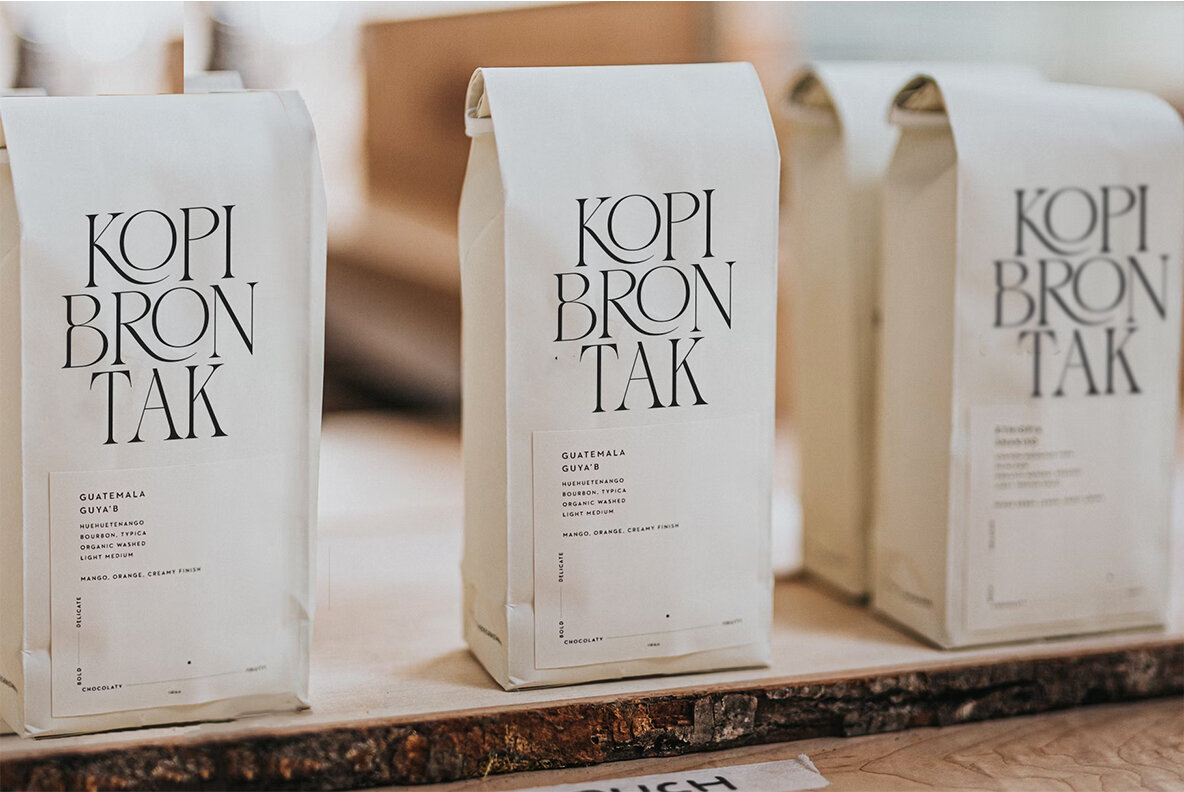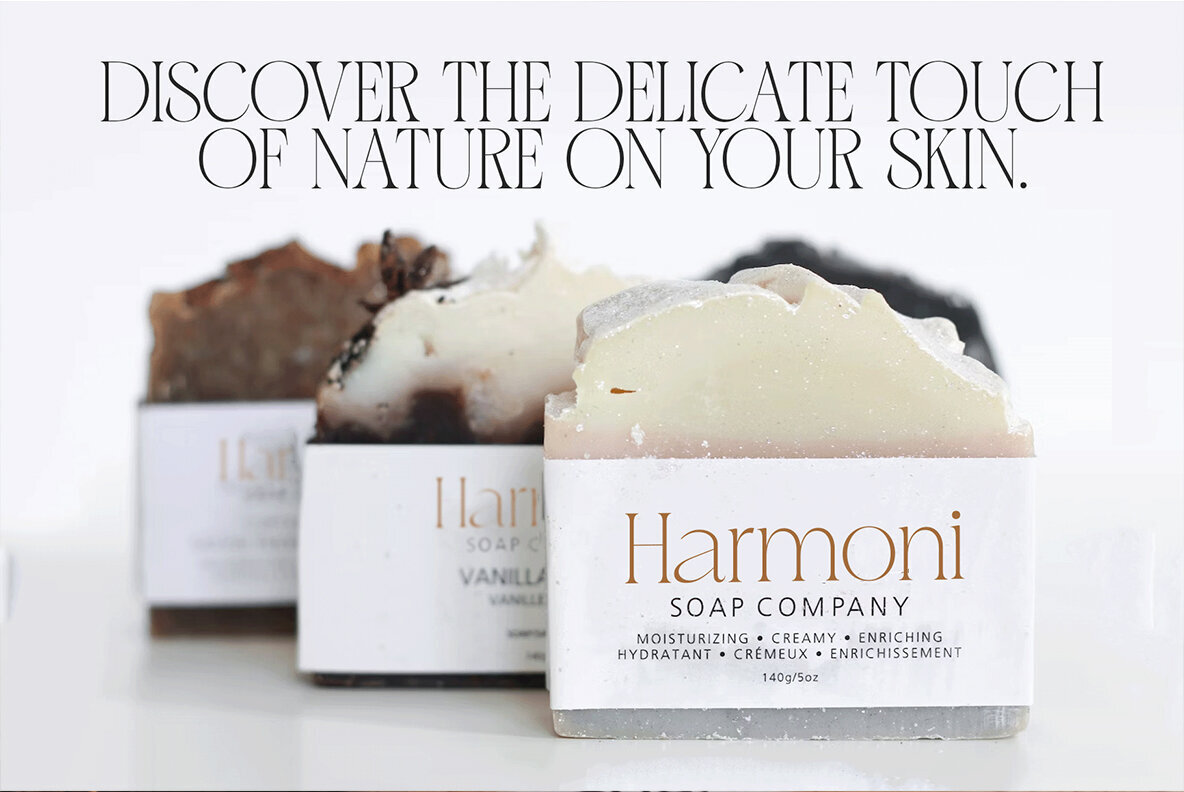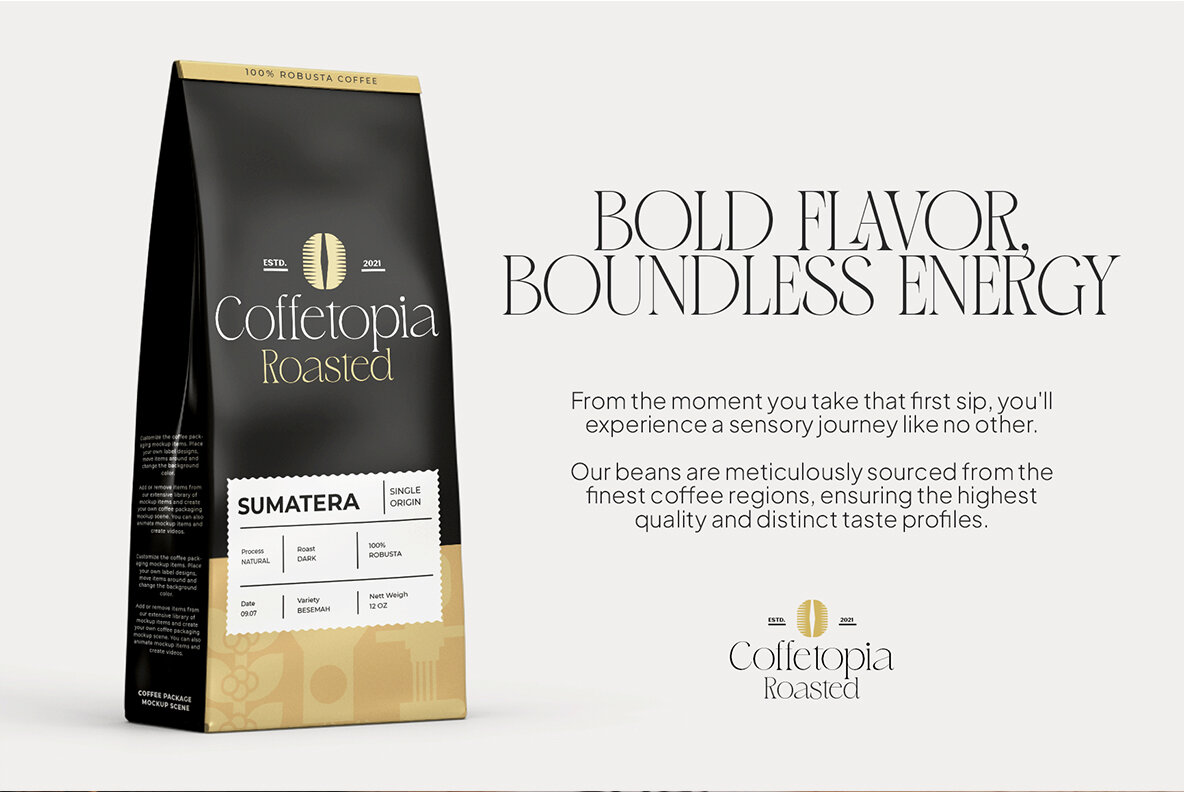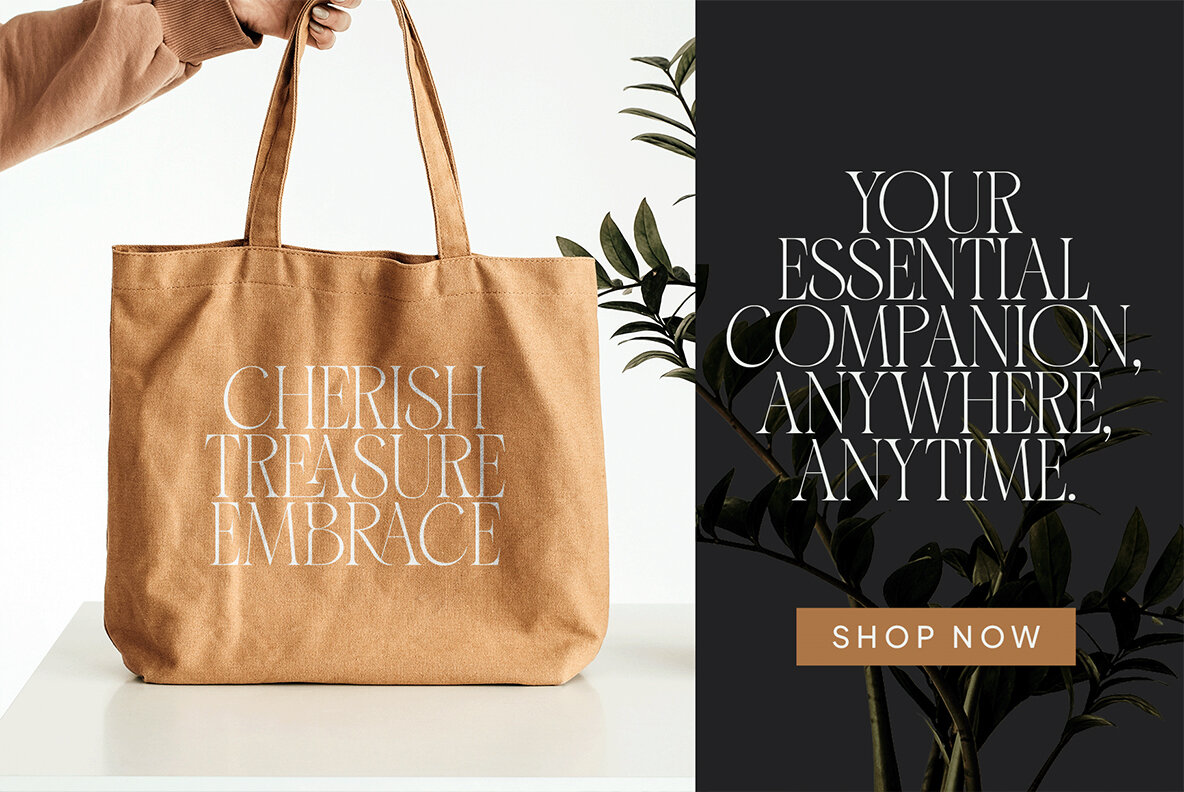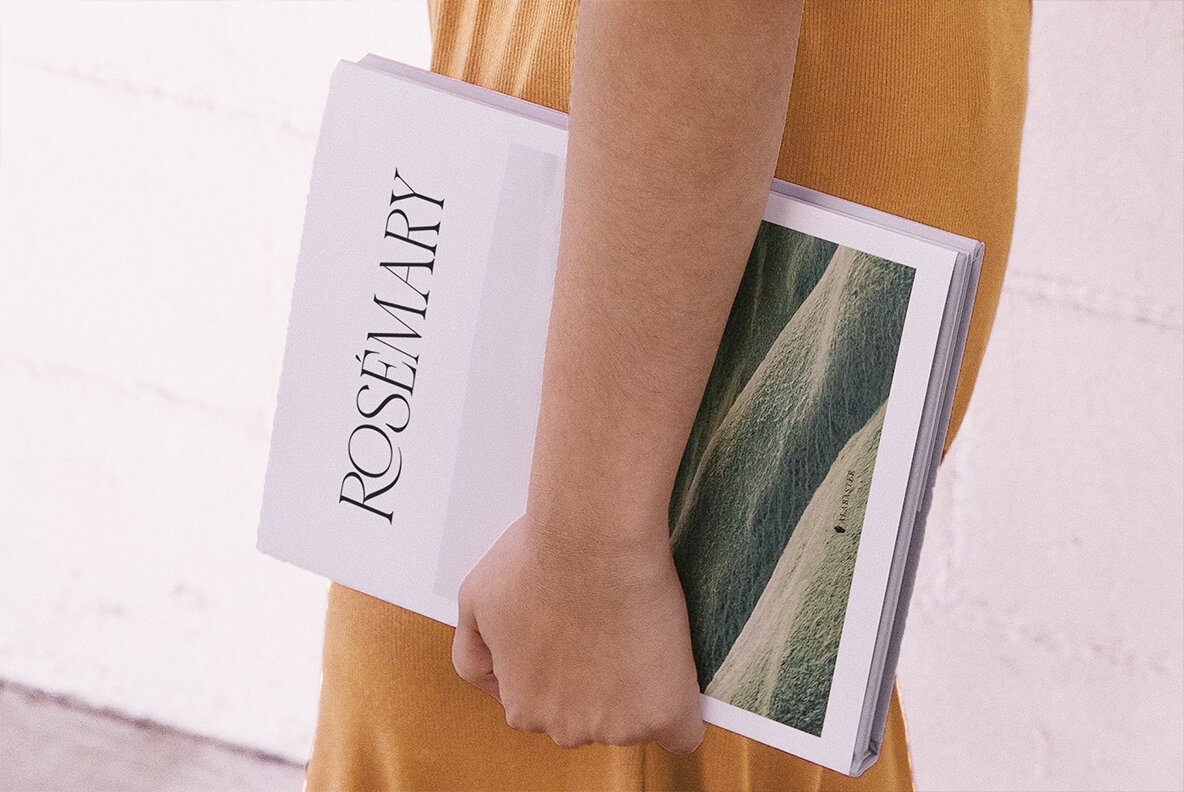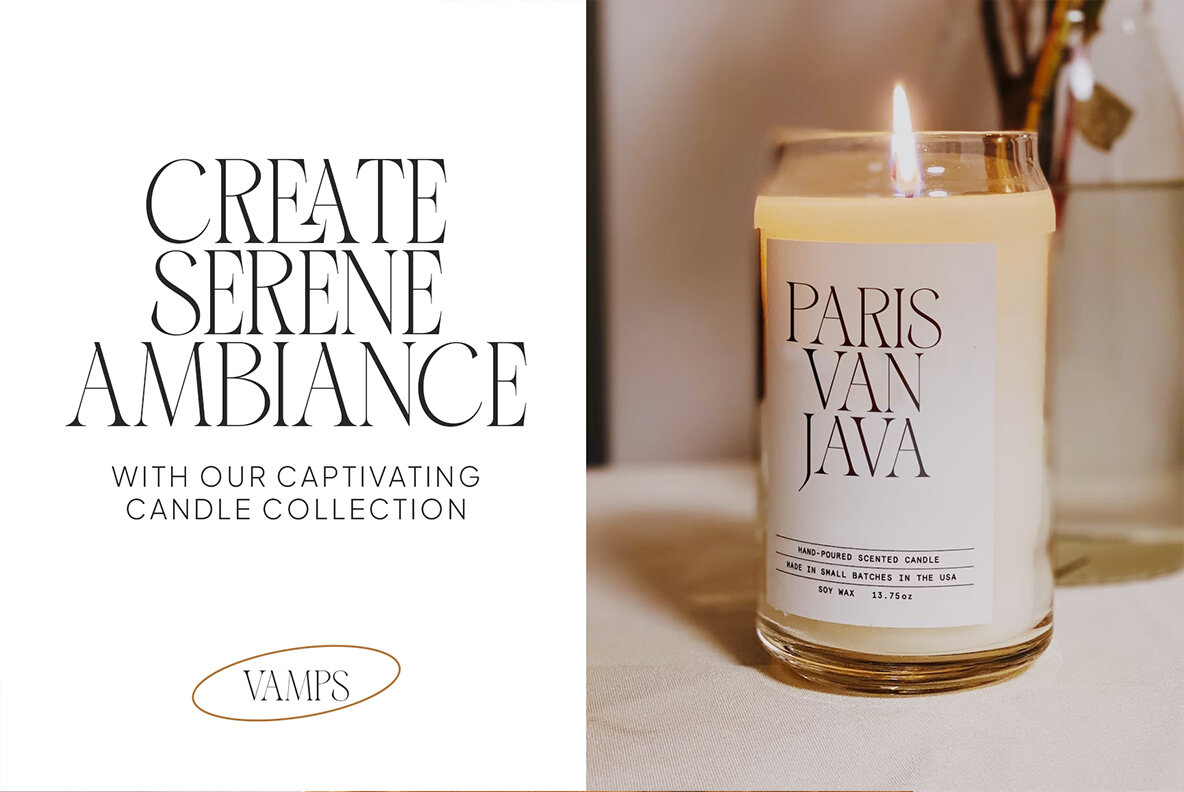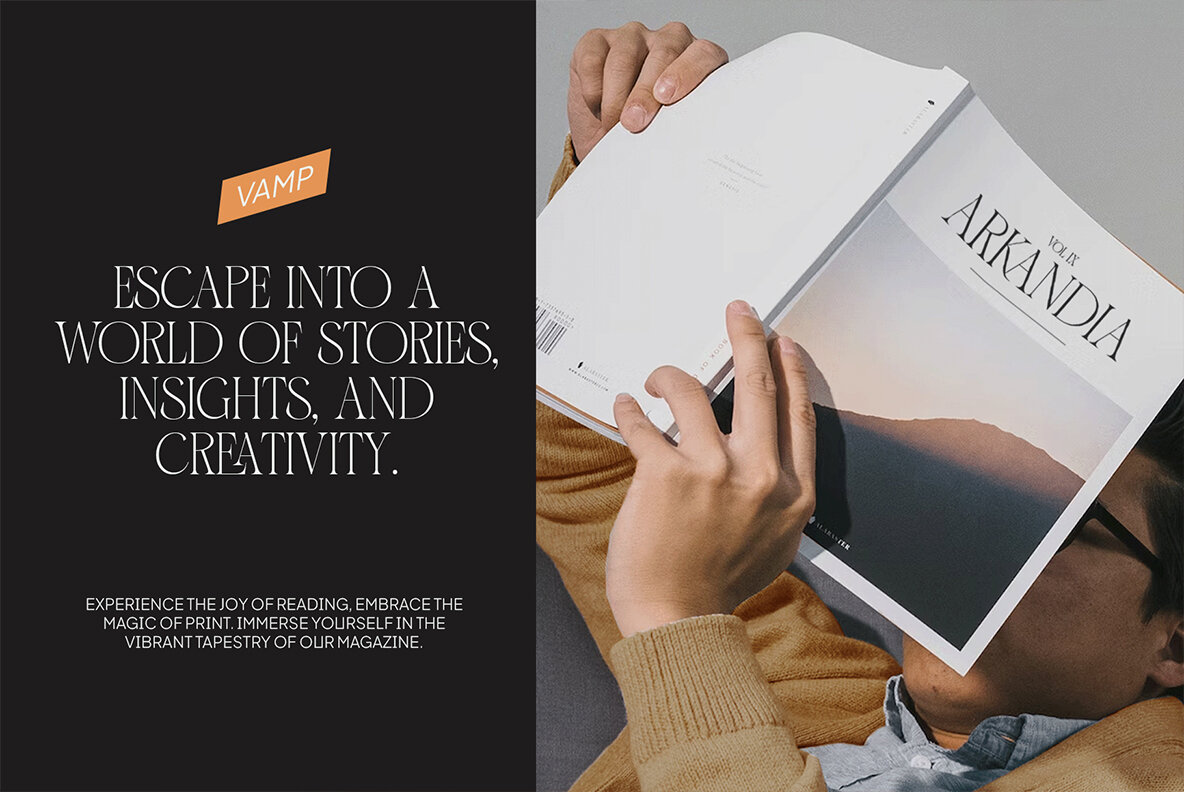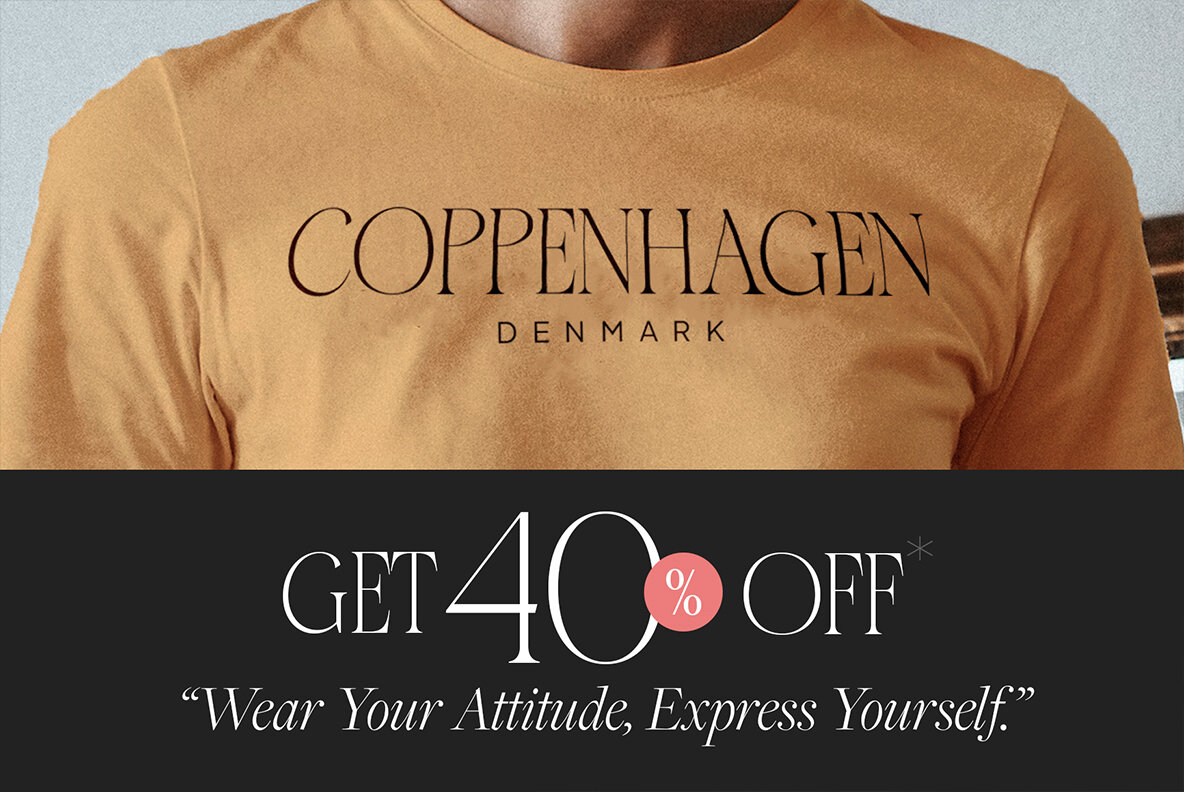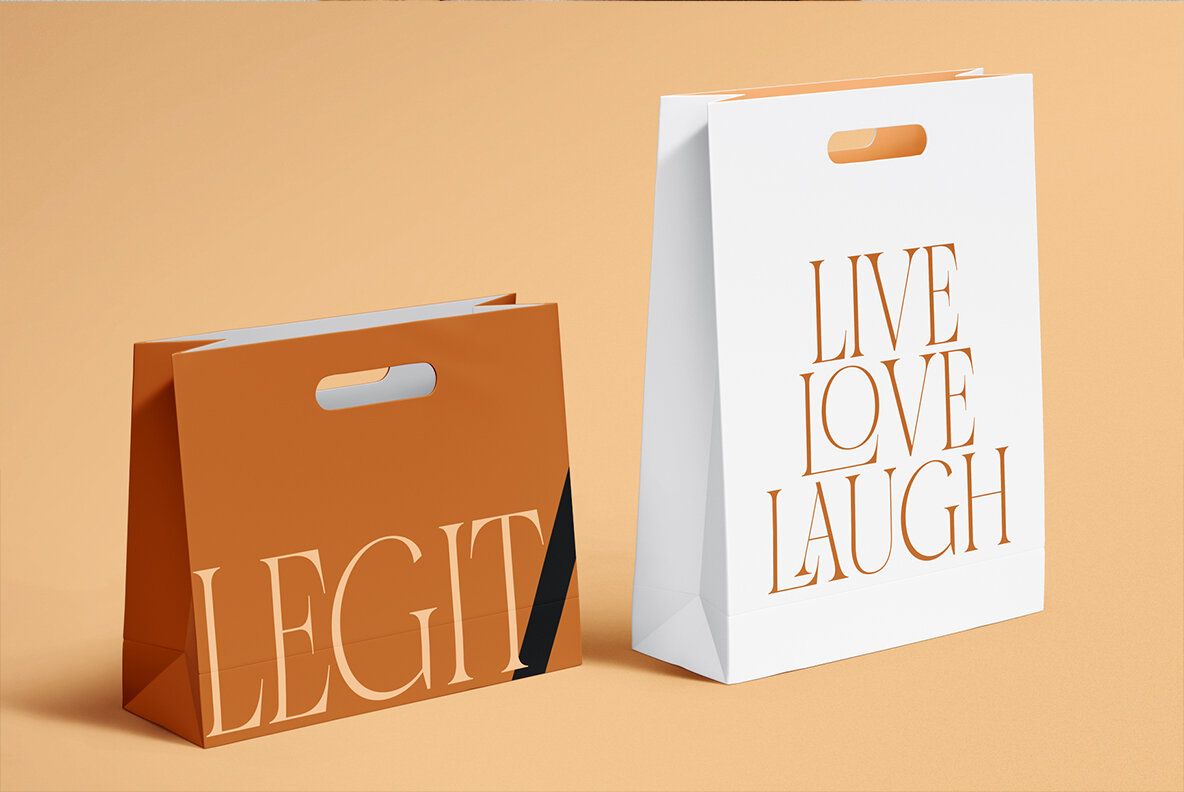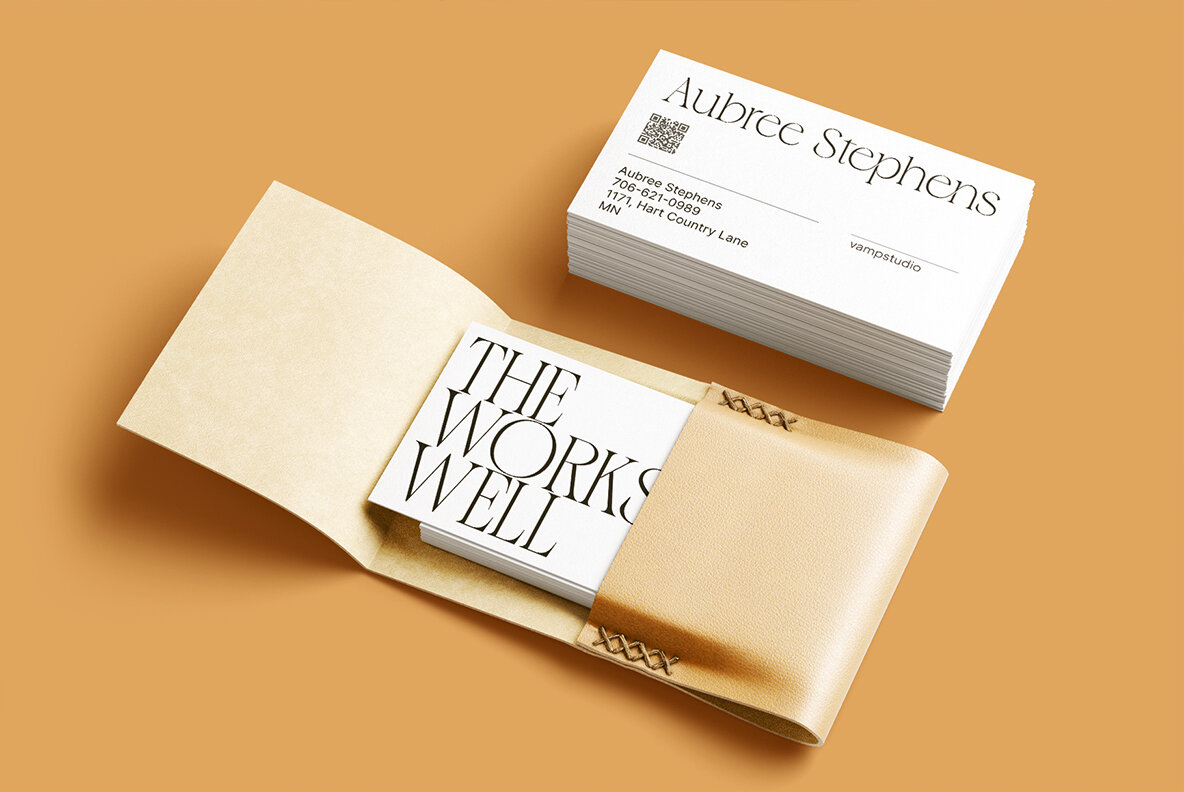
Delicate Calligraphy Font
Delicate Caligraphy Regular
Delicate Calligraphy is a stylish and elegant serif typeface. This font looks very simple, clean, and elegant. Specially designed by skilled hands makes this font is the perfect fit for all your big projects. Delicate Calligraphy is perfect for branding projects, logo, wedding designs, social media posts, advertisements, product packaging, product designs, label, photography, watermark, invitation, stationery and any projects that need luxury and modern taste.